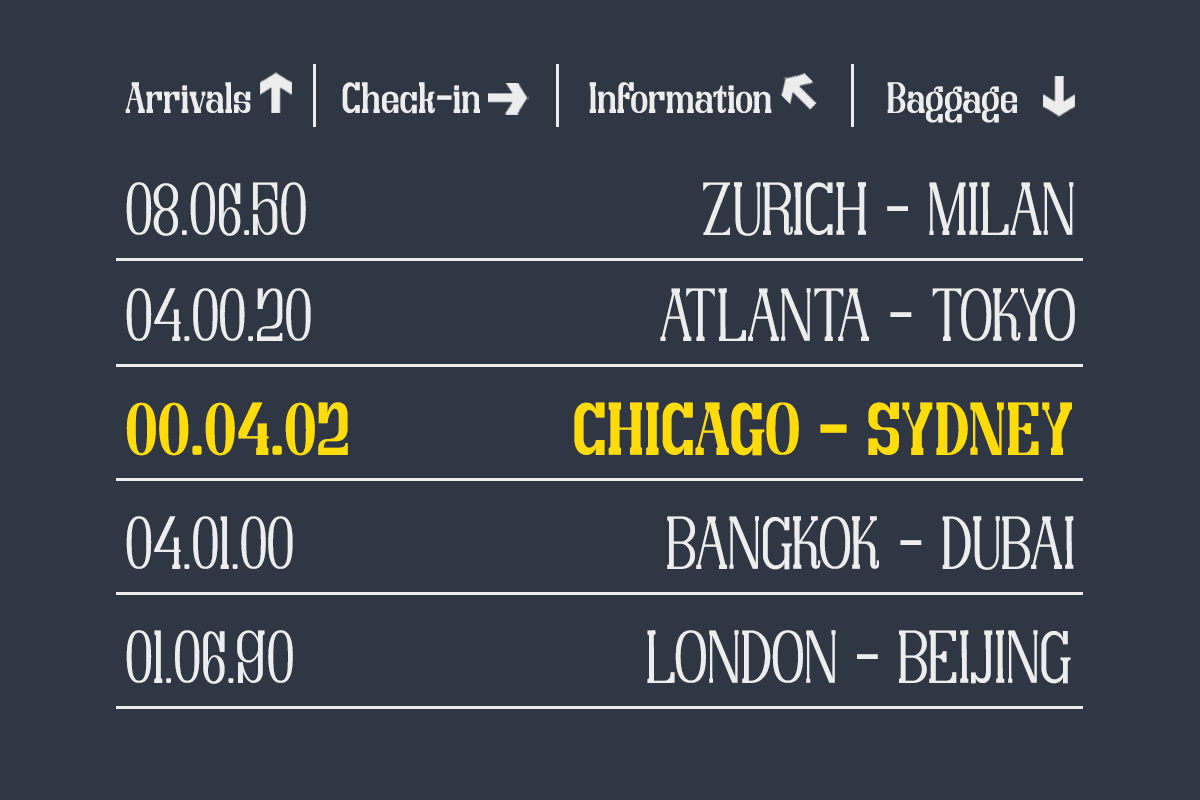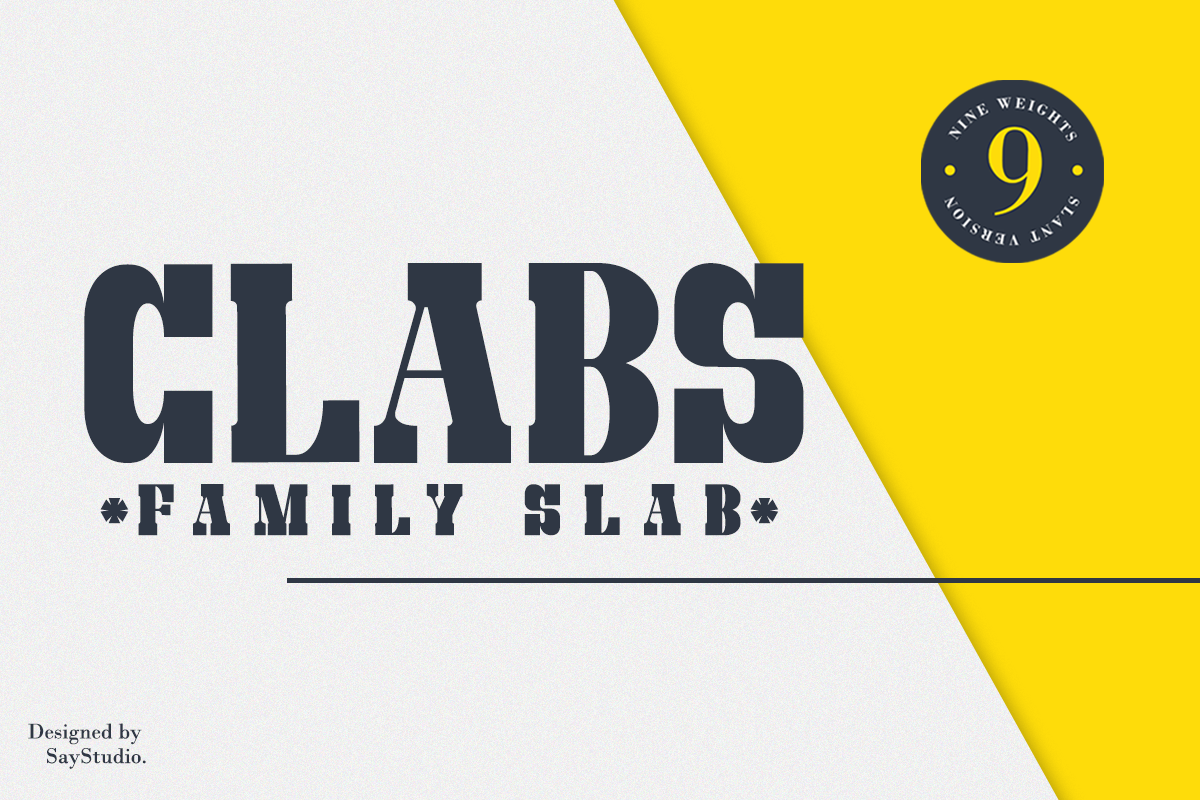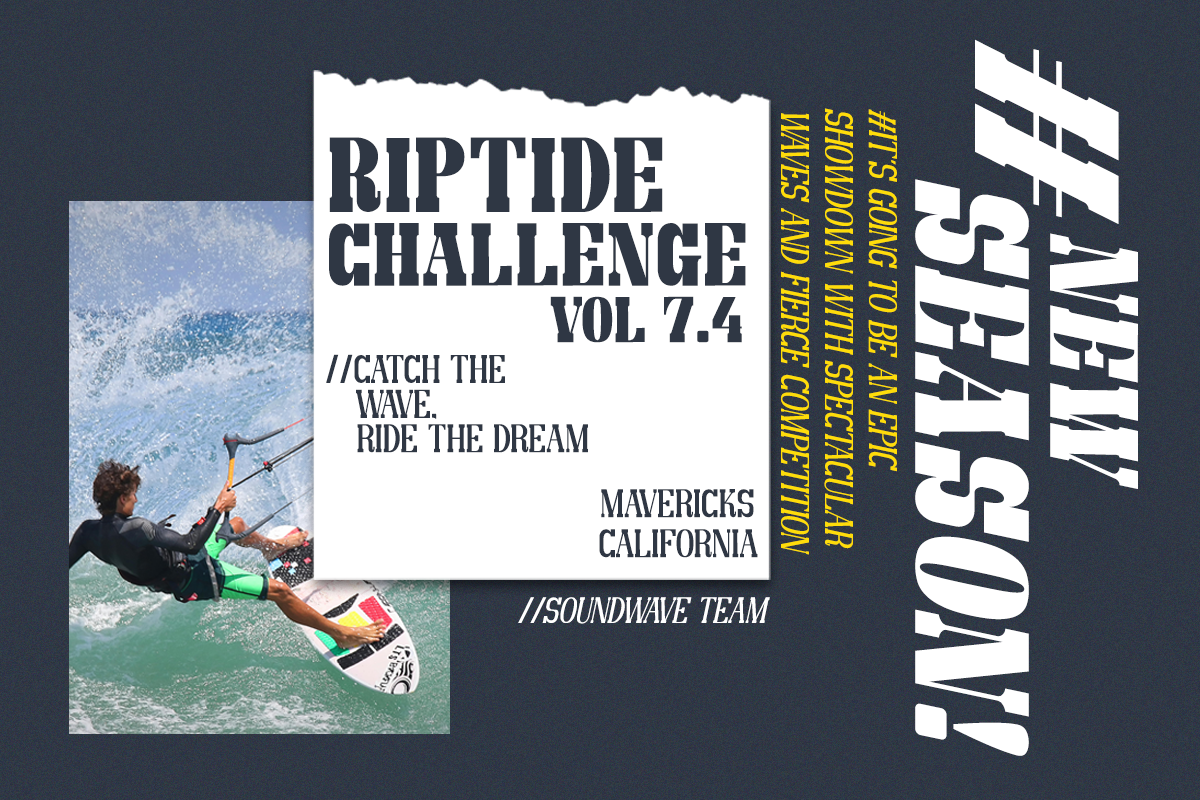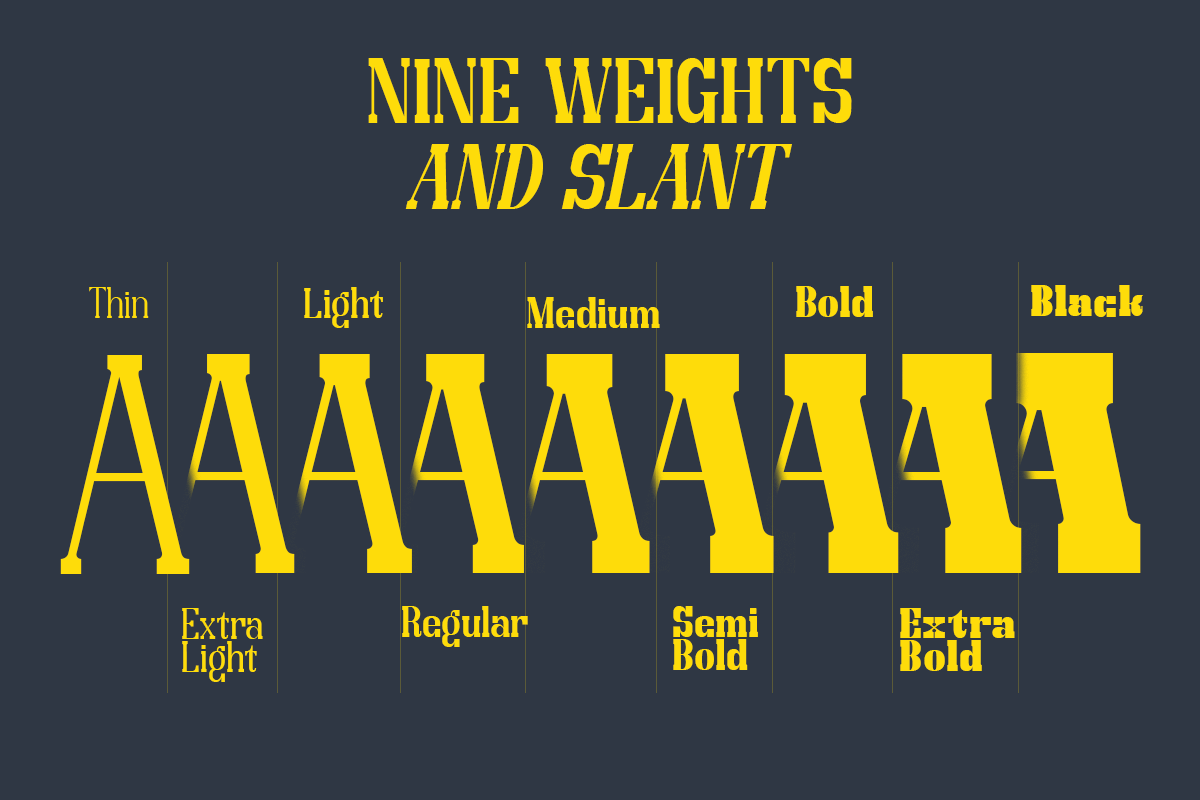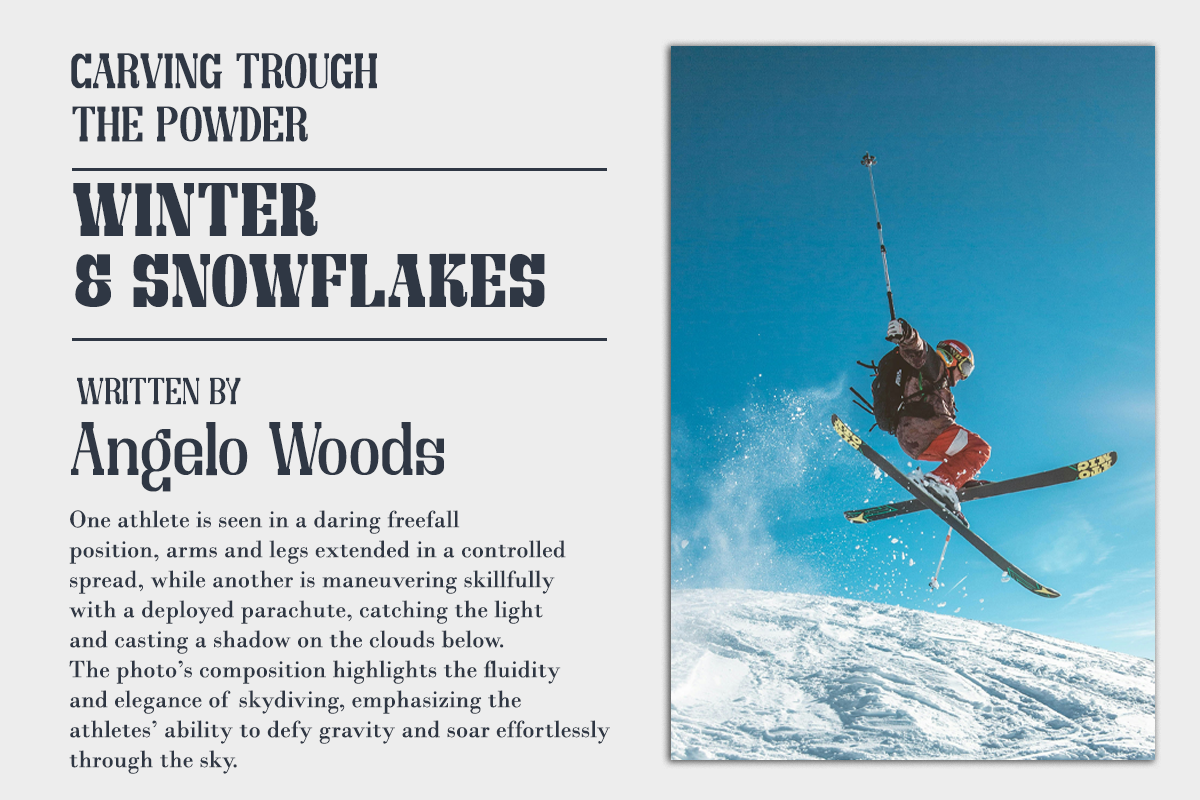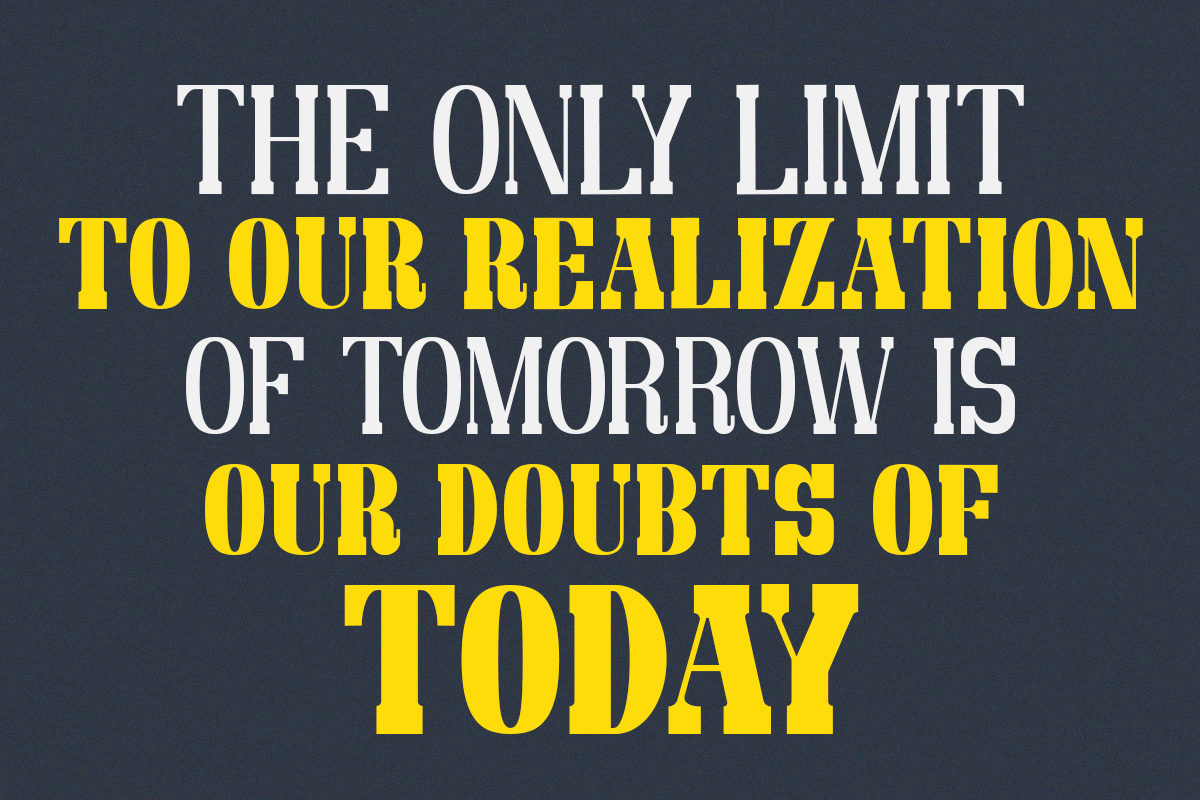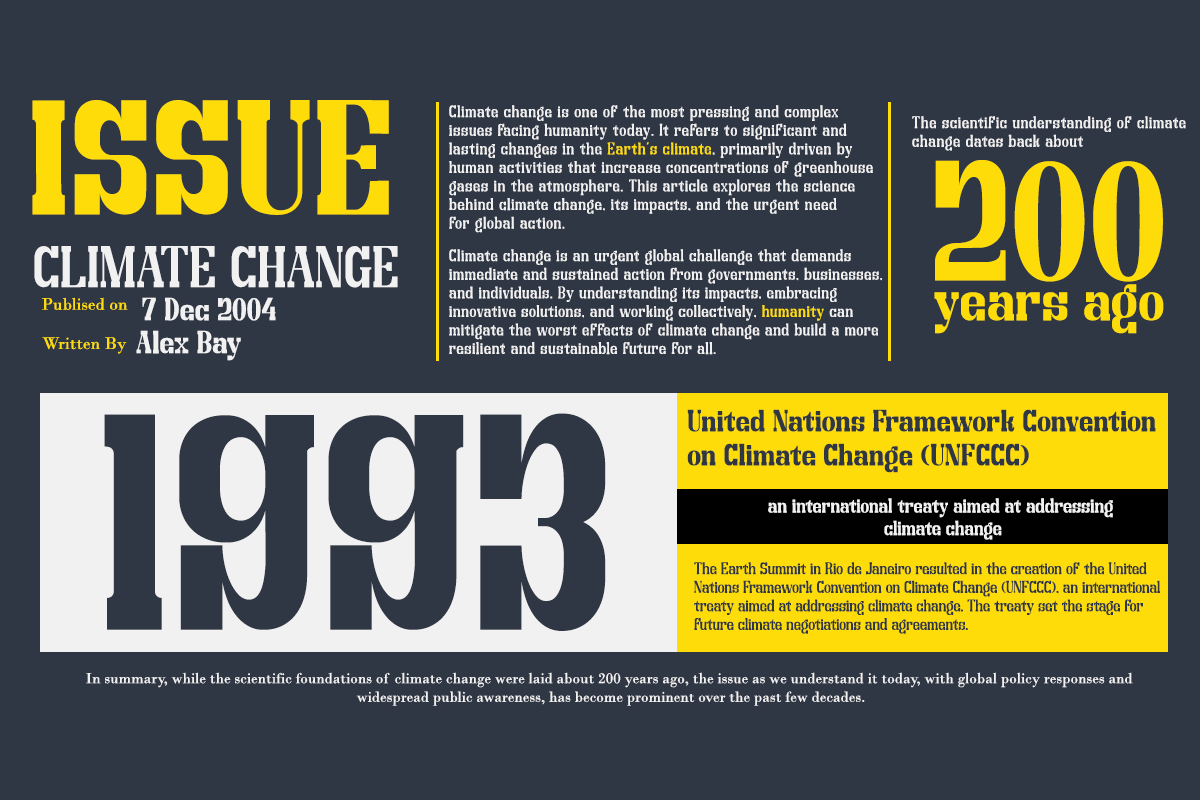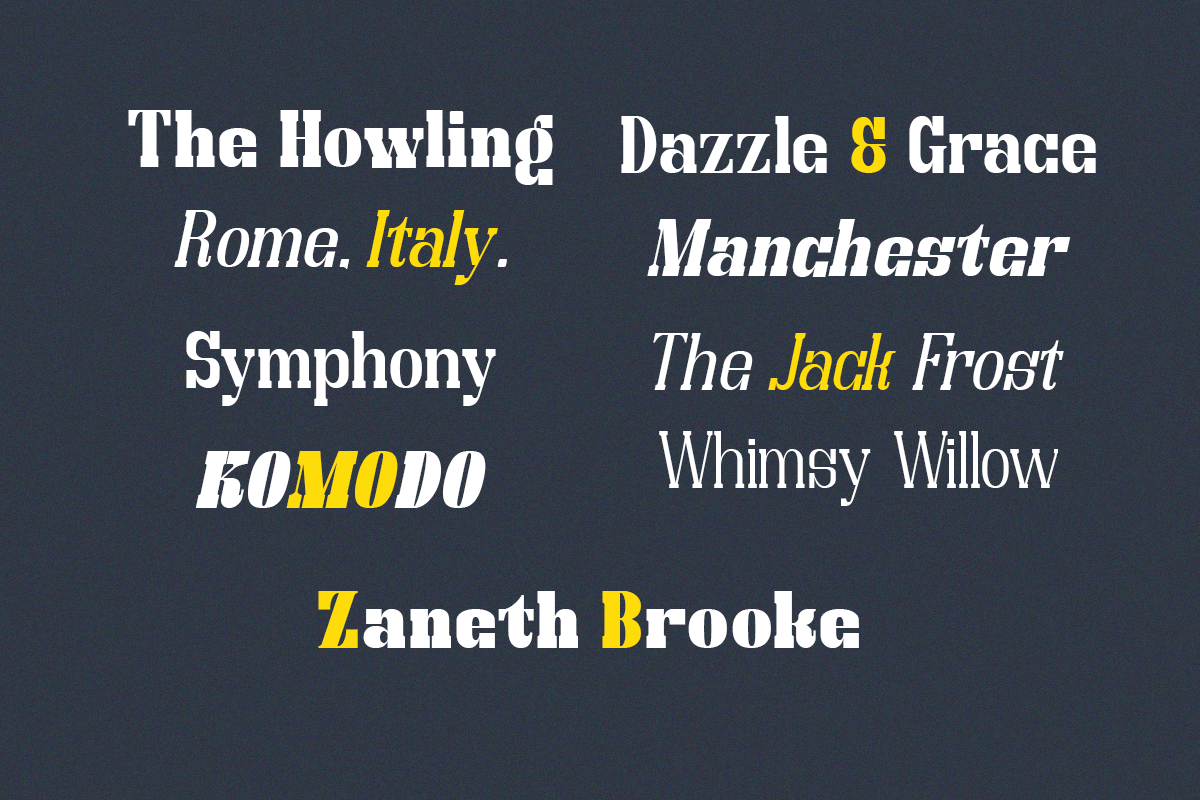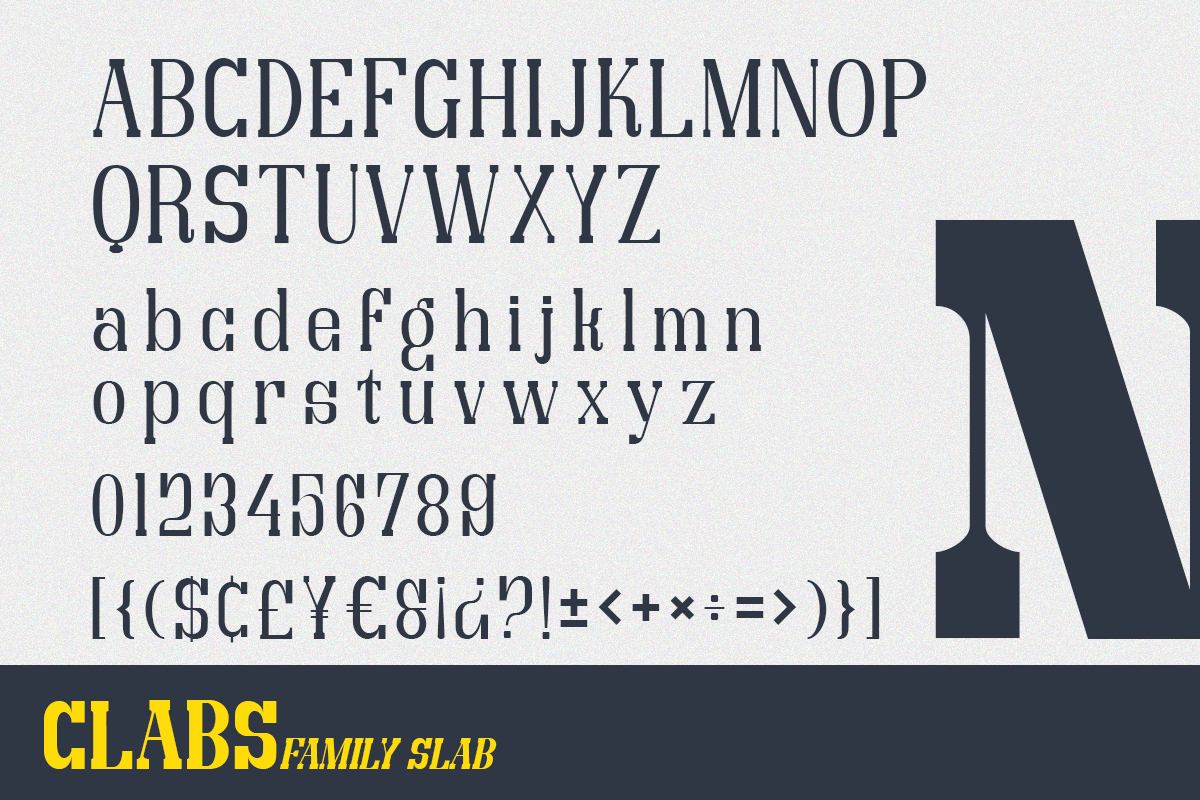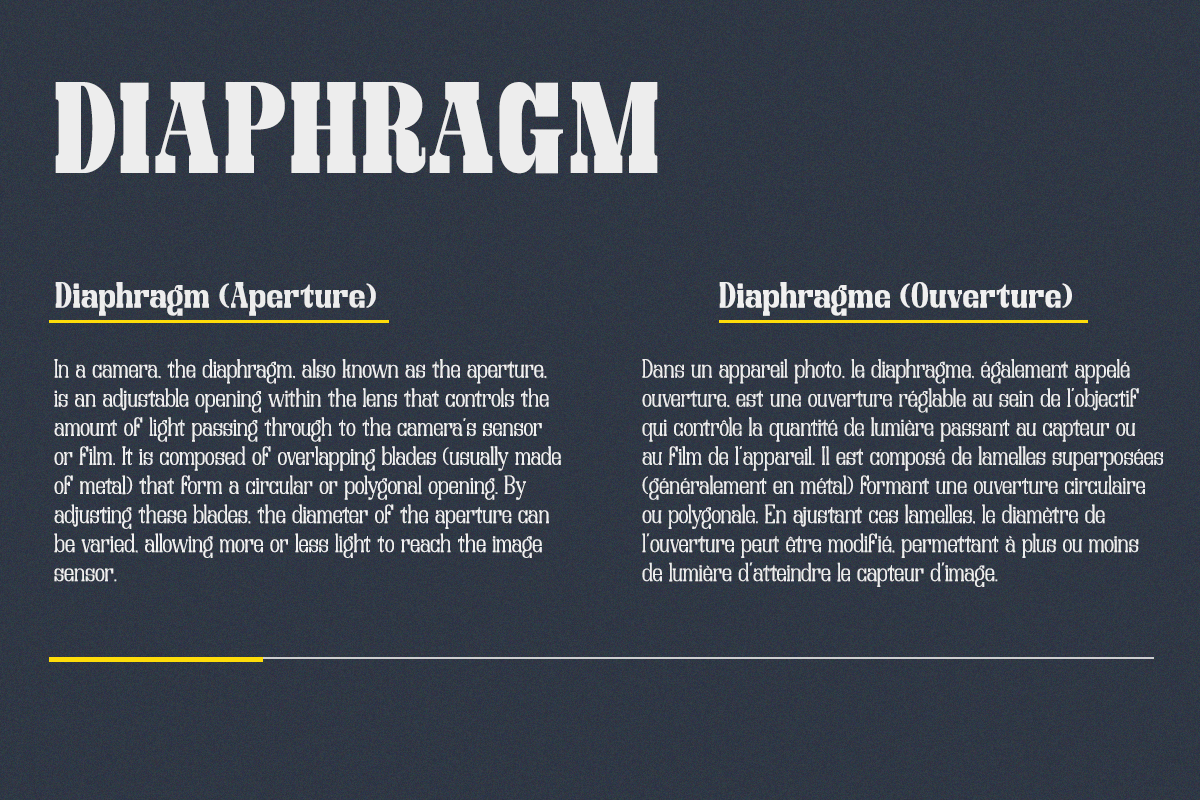
Clab - Family Slab Font
Clabs is a versatile slab serif font family designed for branding, featuring 9 weights from Thin to Black, each accompanied by matching italics. Its bold, chunky characters combined with thin strokes and flowy italics create a unique look suitable for making strong statement headlines. The low contrast strokes, short ascenders and descenders, and low caps lend it a vintage, rough aesthetic, making Clabs ideal for various projects like logo design, clothing branding, magazine headers, newspaper or any amazing work while supporting multiple languages.